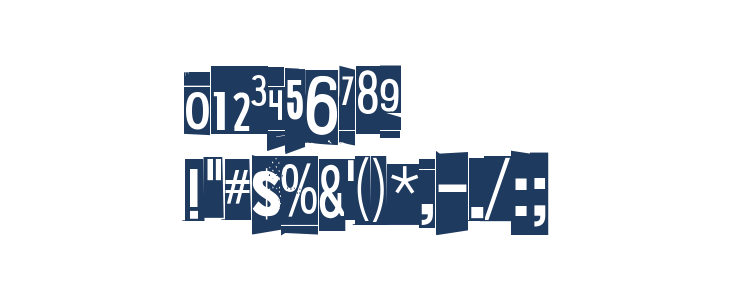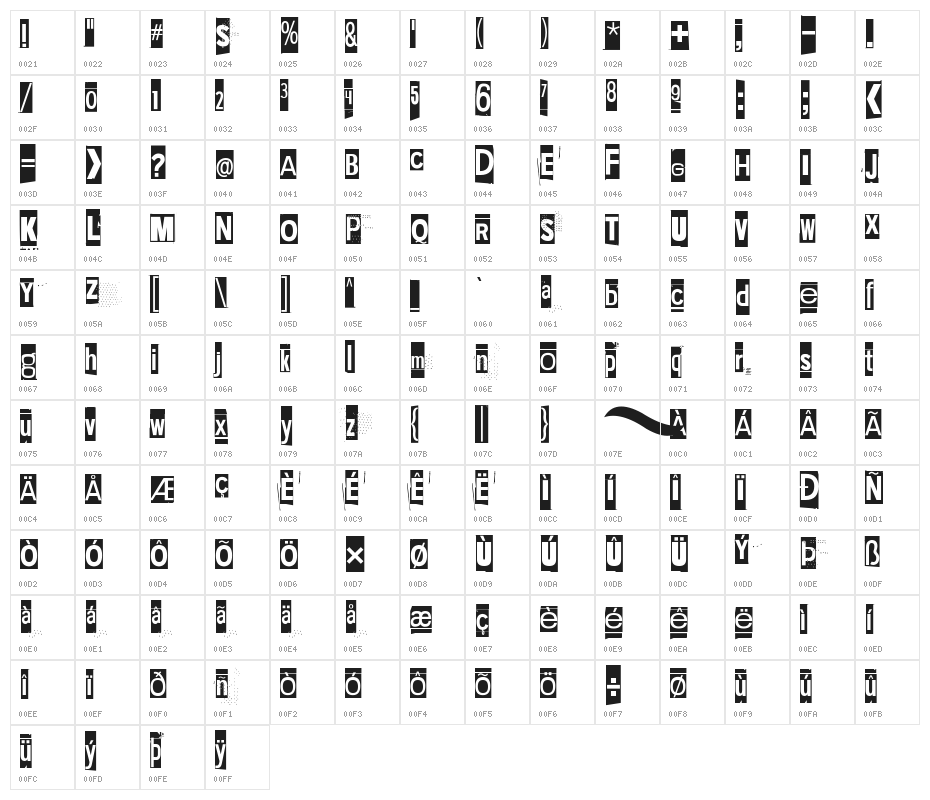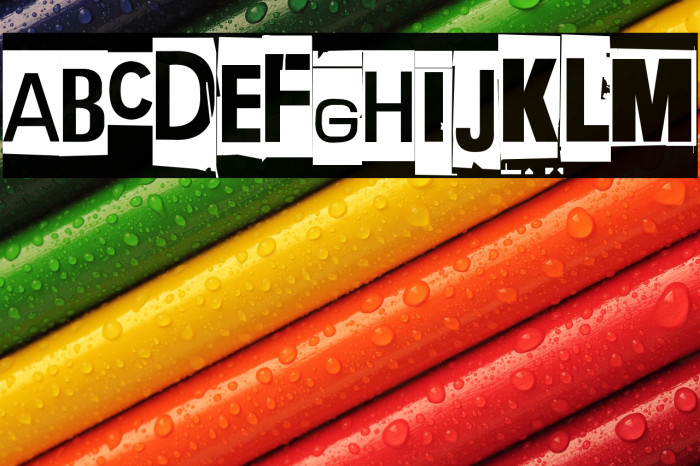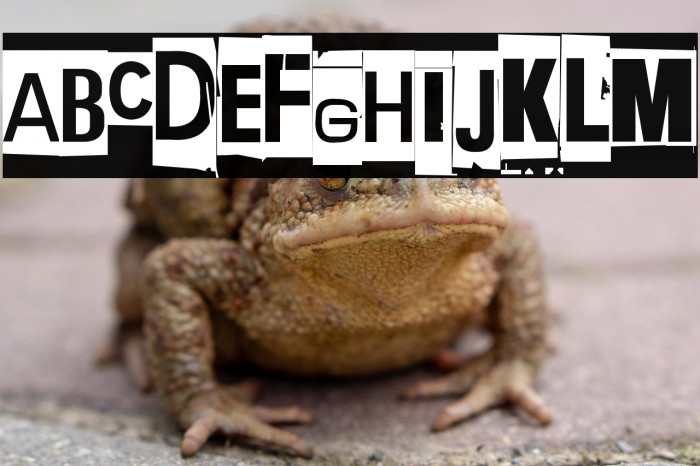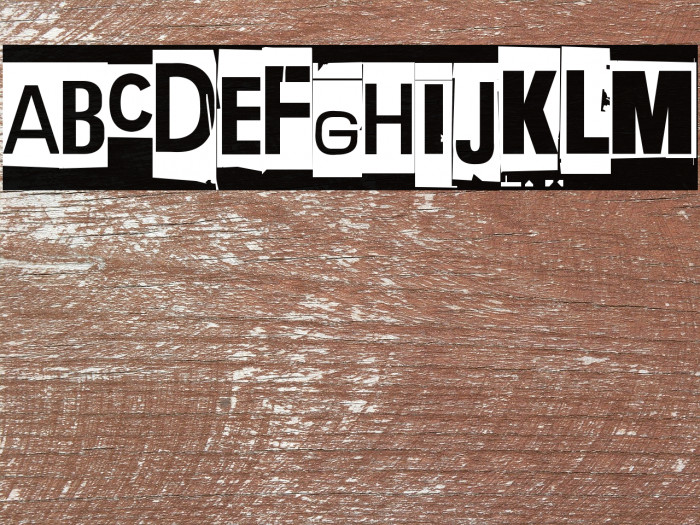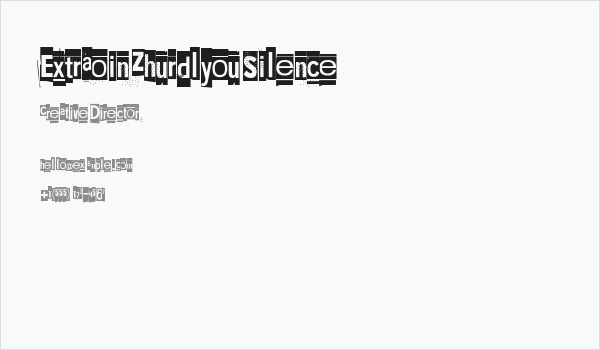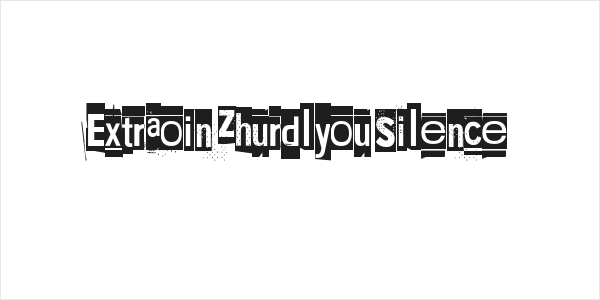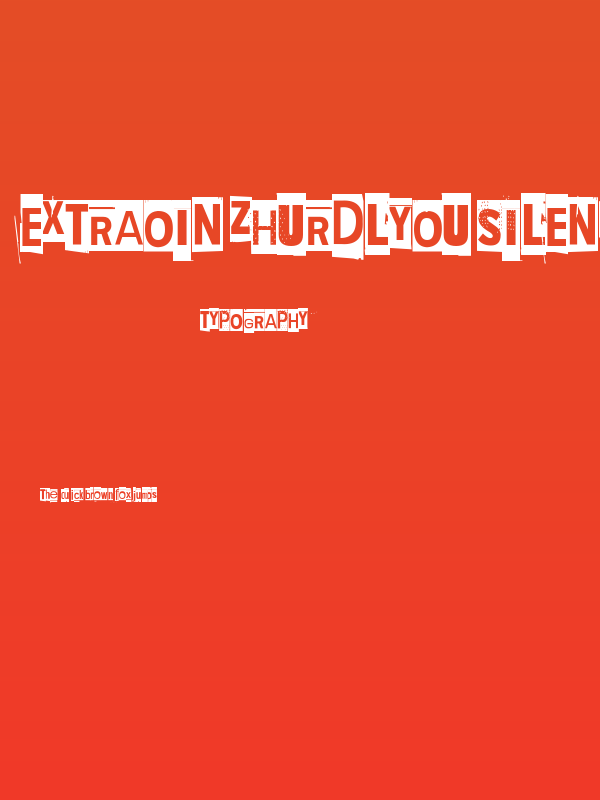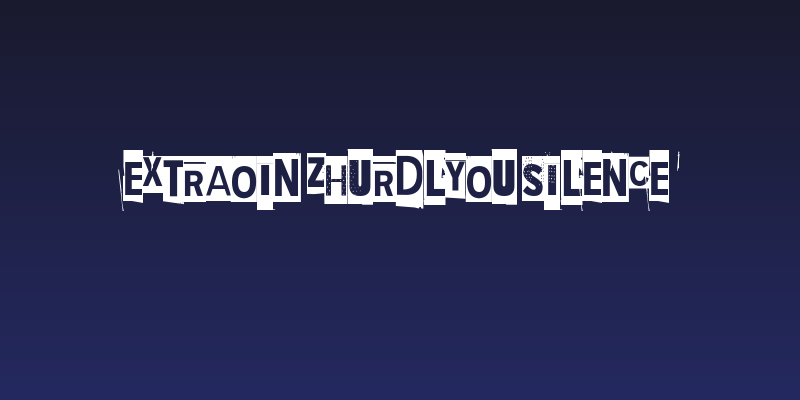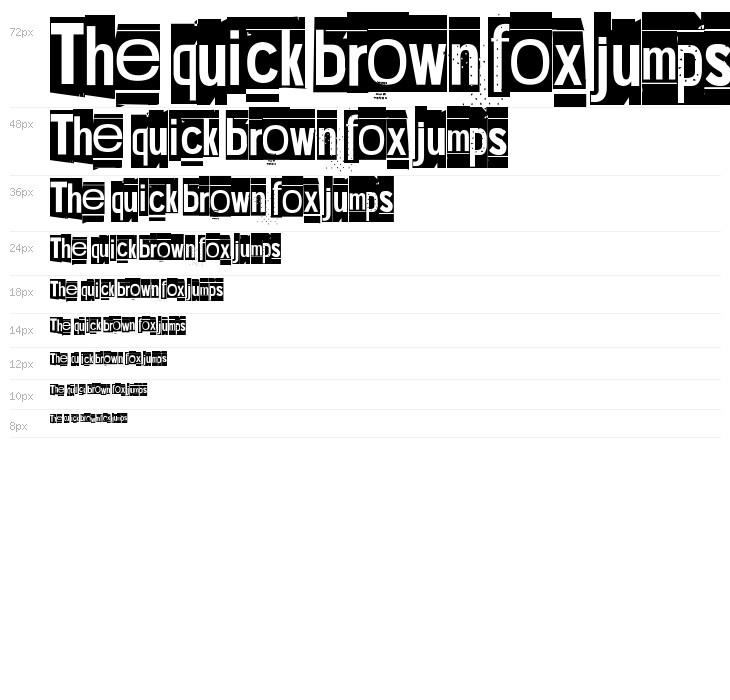
Extraoin Zhurdlyou Silence Font
Extraoin Zhurdlyou Silence Description
This font features a bold, eclectic style reminiscent of ransom note typography, with each character appearing as if cut from different sources. The uppercase and lowercase letters are distinct, with varying weights and styles, creating a visually dynamic and chaotic appearance. The numbers and special characters follow the same mismatched aesthetic, contributing to the overall disordered yet intriguing look. This font's unique style makes it stand out, offering a playful and unconventional approach to typography.
| Use Case | Headlines, Posters, Artistic Designs |
| Proposed Projects | Ideal for creative projects like posters, album covers, or any design requiring a bold, unconventional look. |